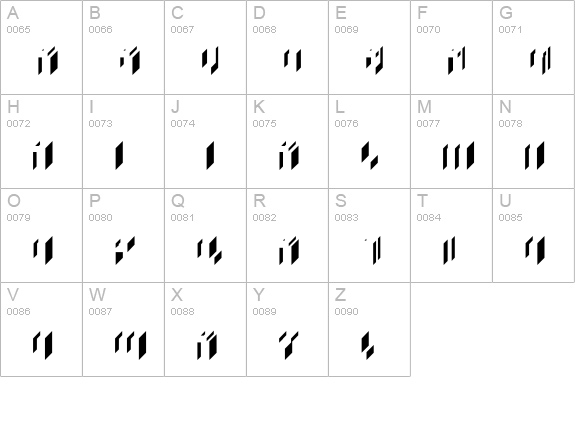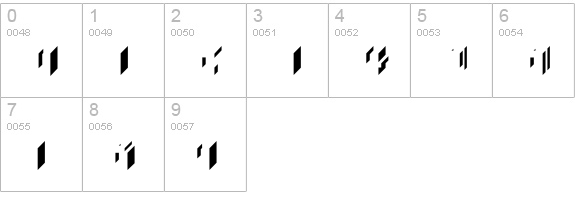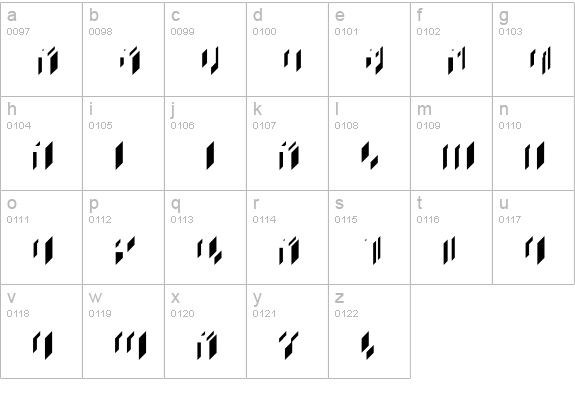
BlockedSide Font Details
Introducing BlockedSide font - a modern and unique typeface that exudes a bold and edgy aesthetic. This display font features strong, blocky letterforms with a contemporary twist, making it perfect for headlines, logos, branding projects, and more. The geometric shapes and sharp angles of BlockedSide font give it a striking and impactful appearance that is sure to make your designs stand out. What's even better is that BlockedSide font is available for free download at FontsMarket.com! Yes, you read that right - you can get your hands on this eye-catching font without spending a dime. So don't miss out on the opportunity to enhance your design projects with the bold and stylish BlockedSide font. Download it now and let your creativity soar!